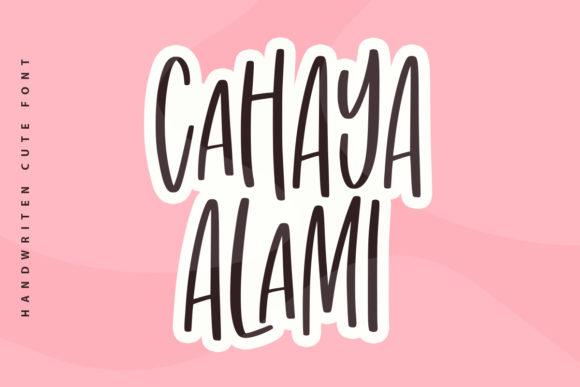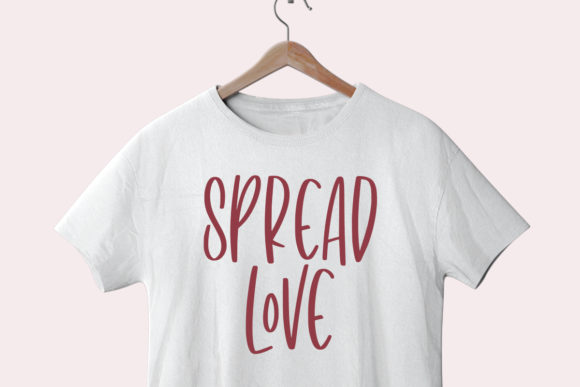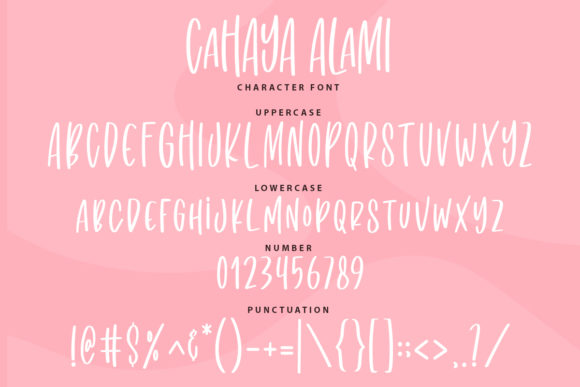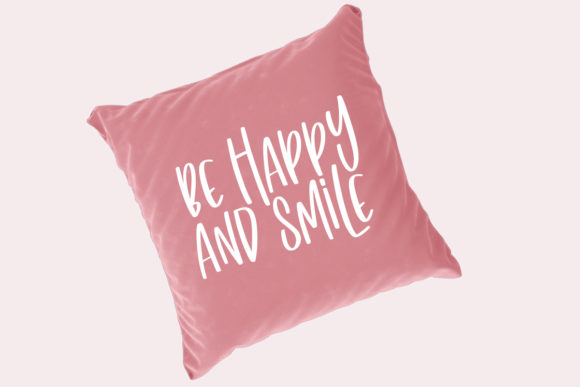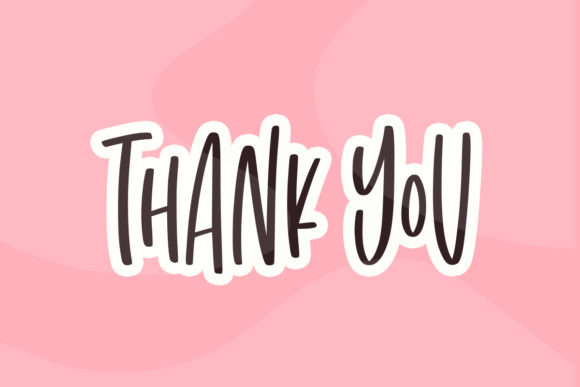
Cahaya Alami Font
About Cahaya Alami Font
Cahaya Alami is a tall, cute and casual handwritten font with an incredibly friendly feel. Whether you’re looking for fonts for Instagram or calligraphy scripts for DIY projects, Cahaya Alami will turn any creative idea into a true piece of art!